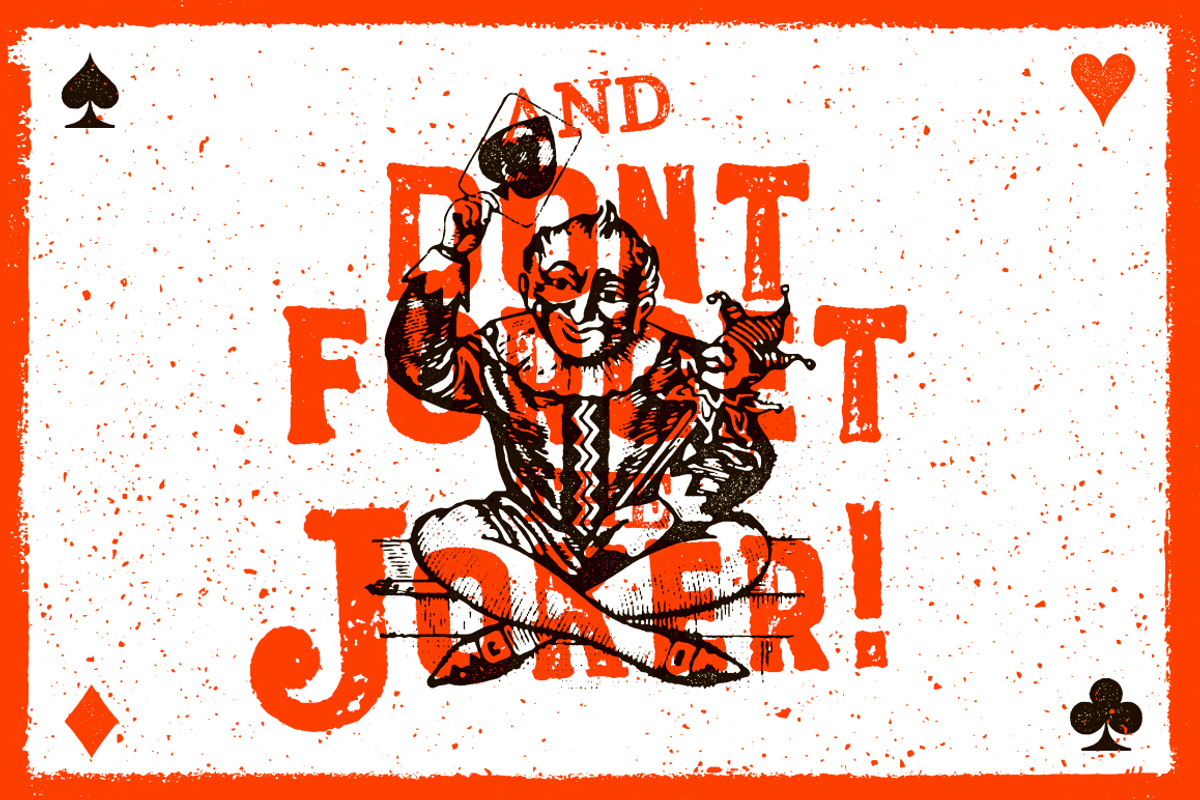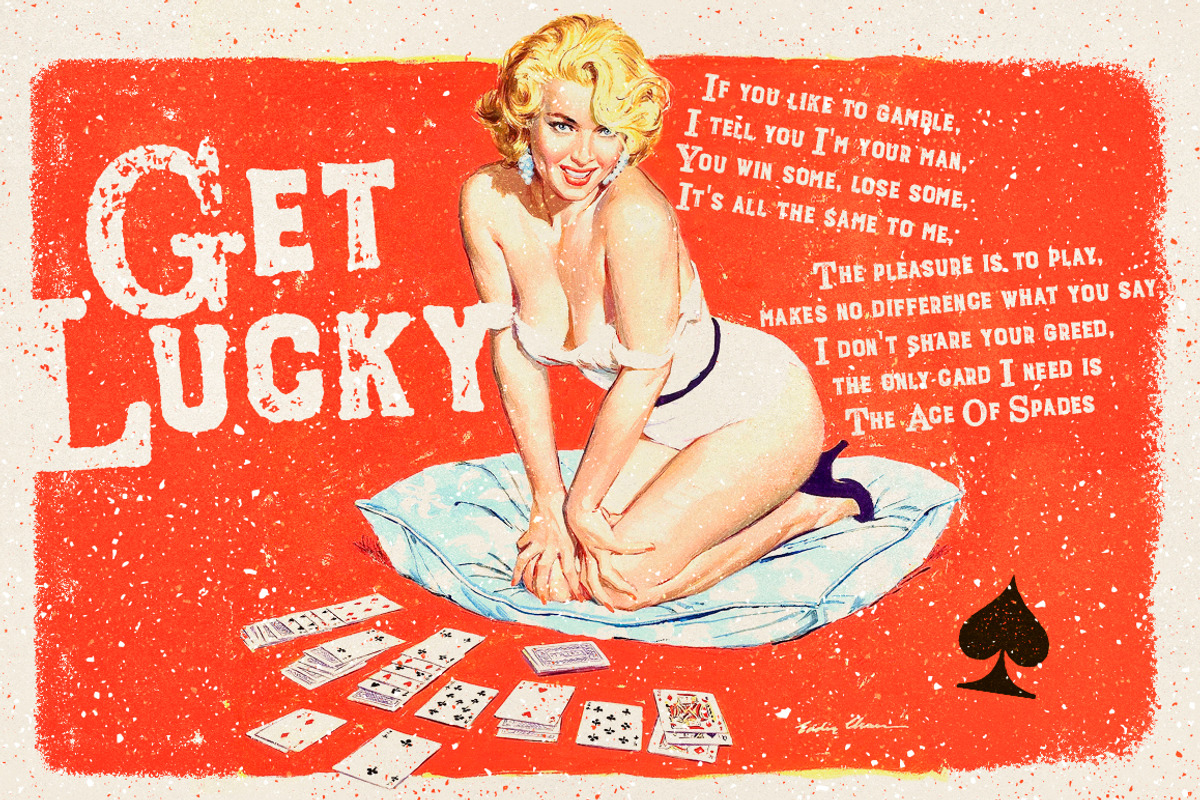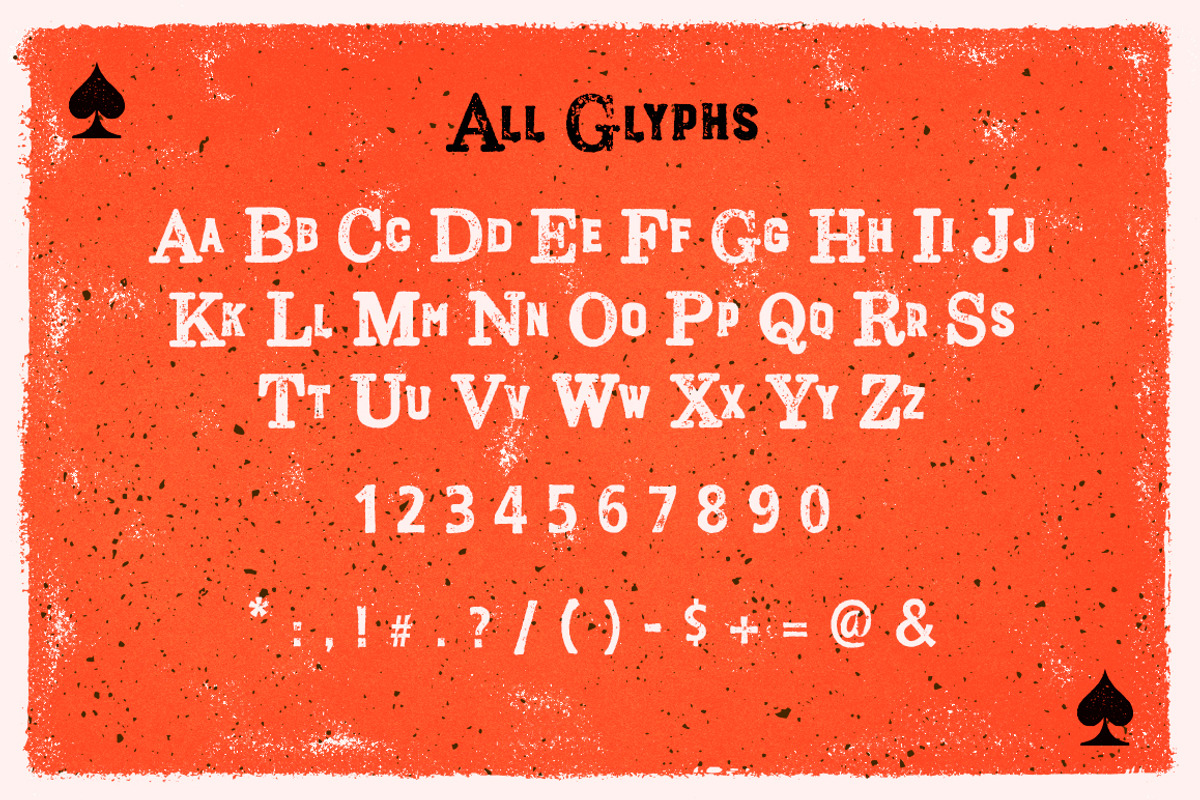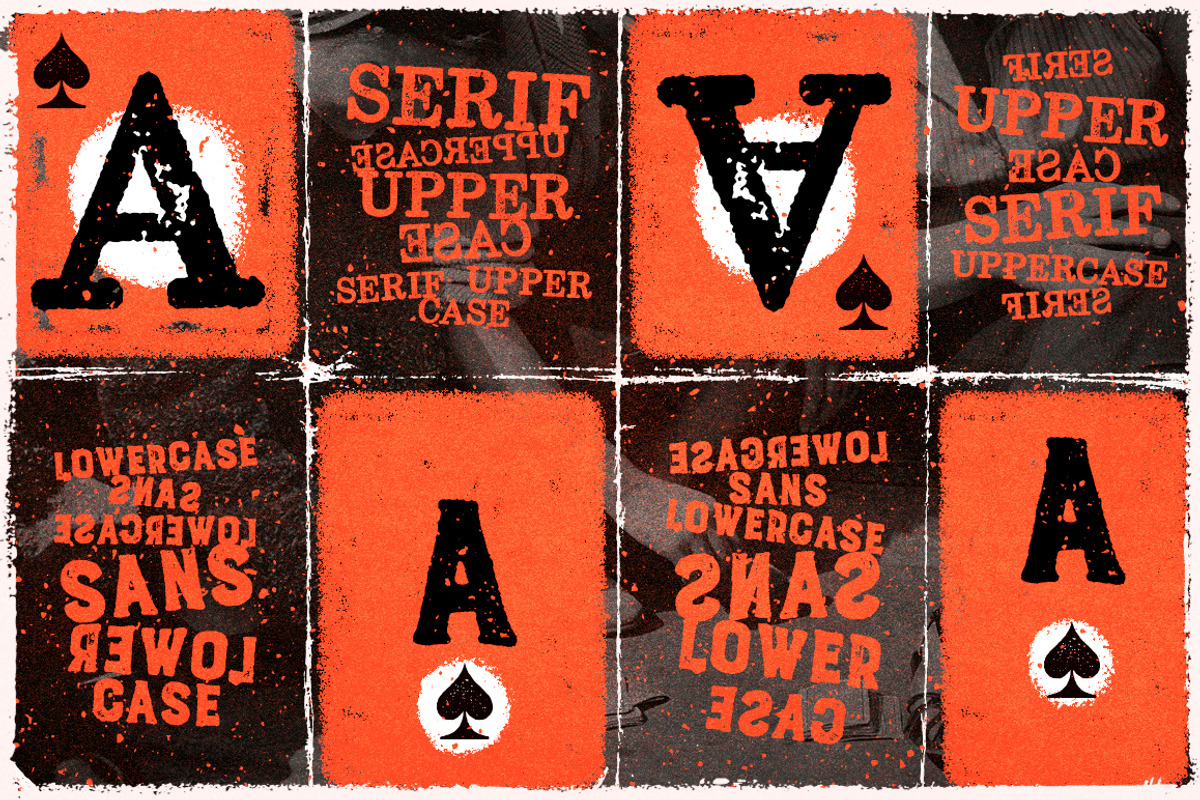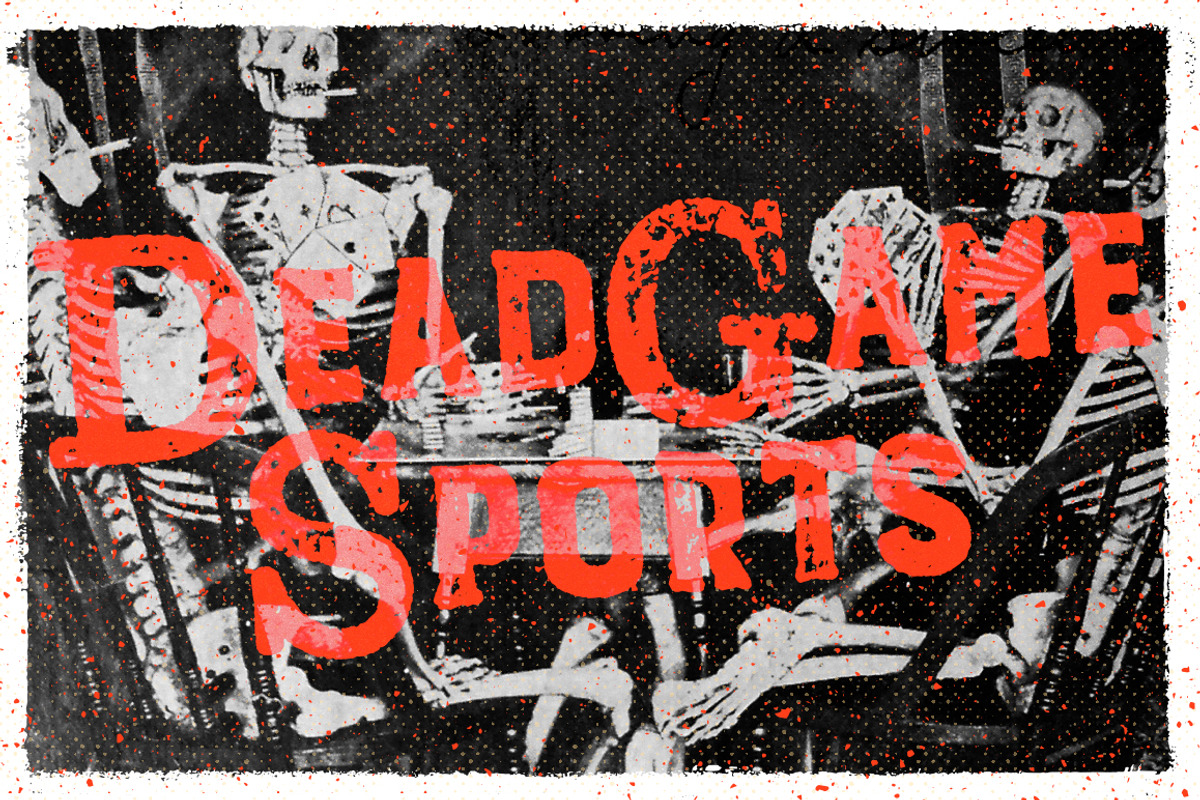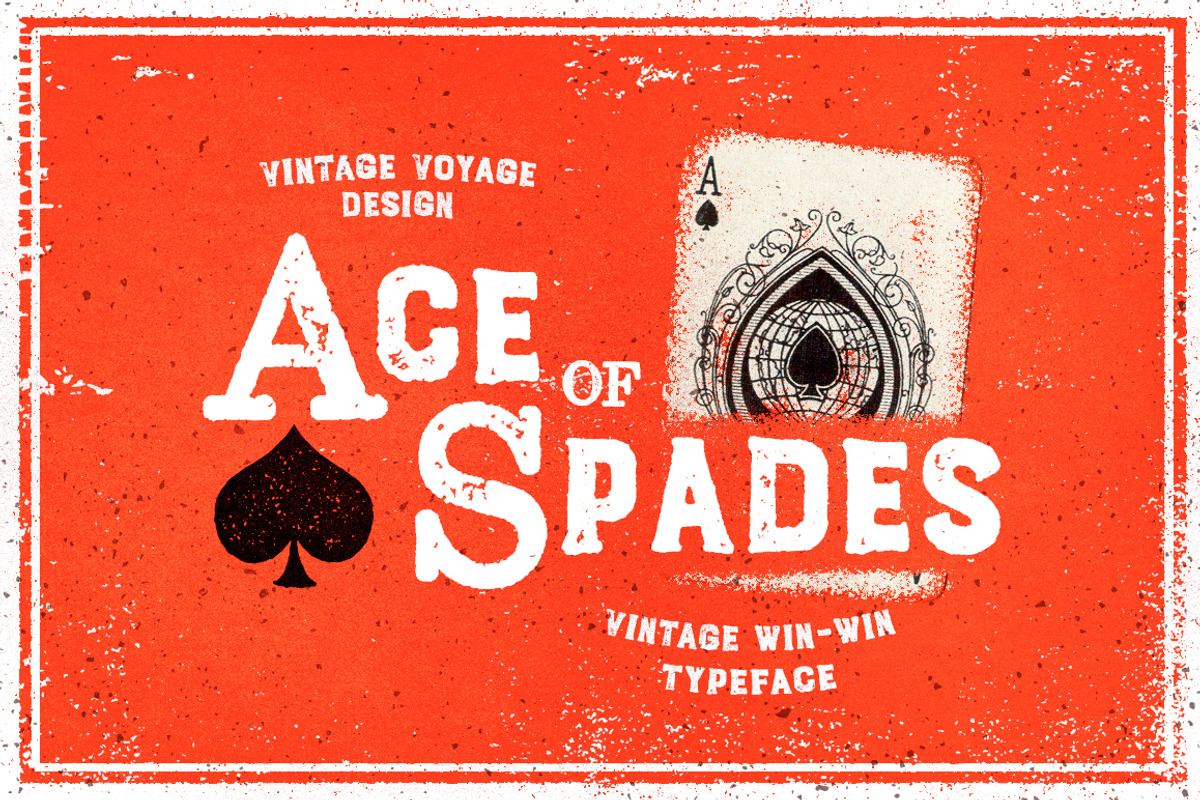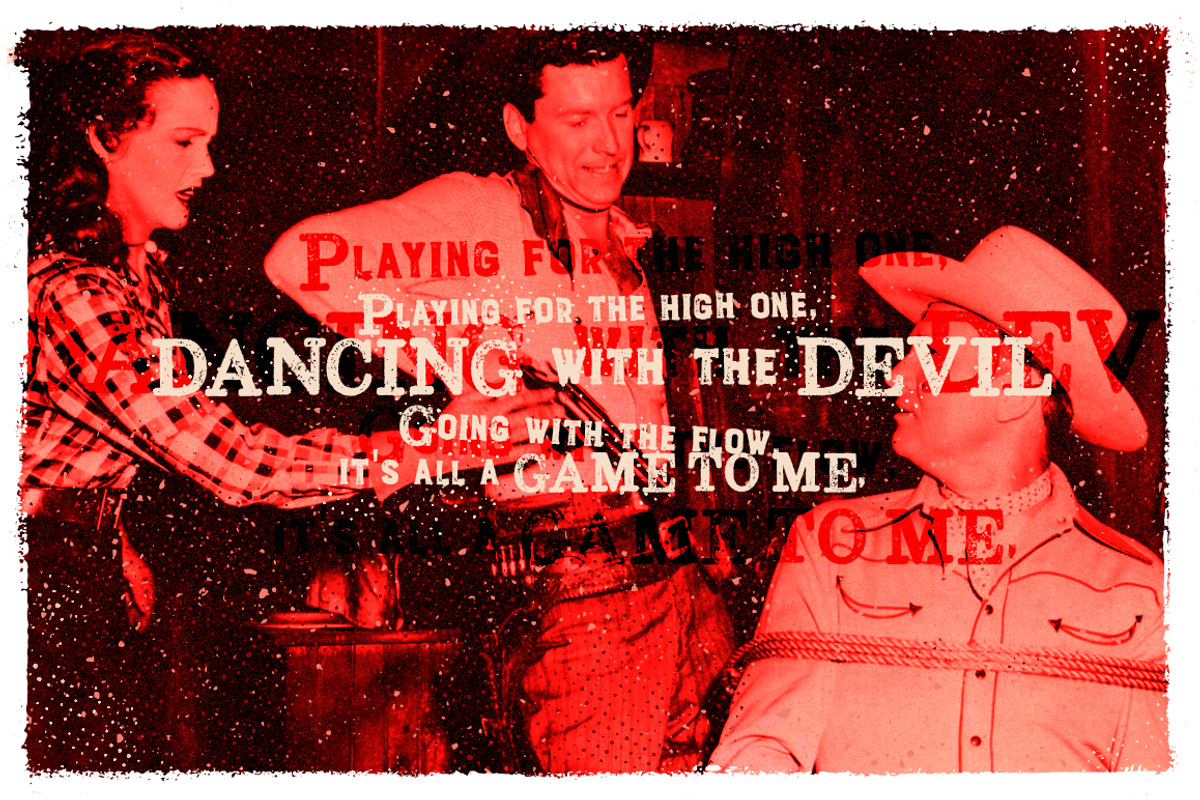
Ace of Spades • Win-Win Typeface
Ace of Spades - Combo font with serif uppercase and sans lowercase letters. Made from 100% Real Letterpress process. Win-Win Combination to your Lucky Vintage Result! Really cool for vintage t-shirt prints, packaging, posters or just double expo pics.